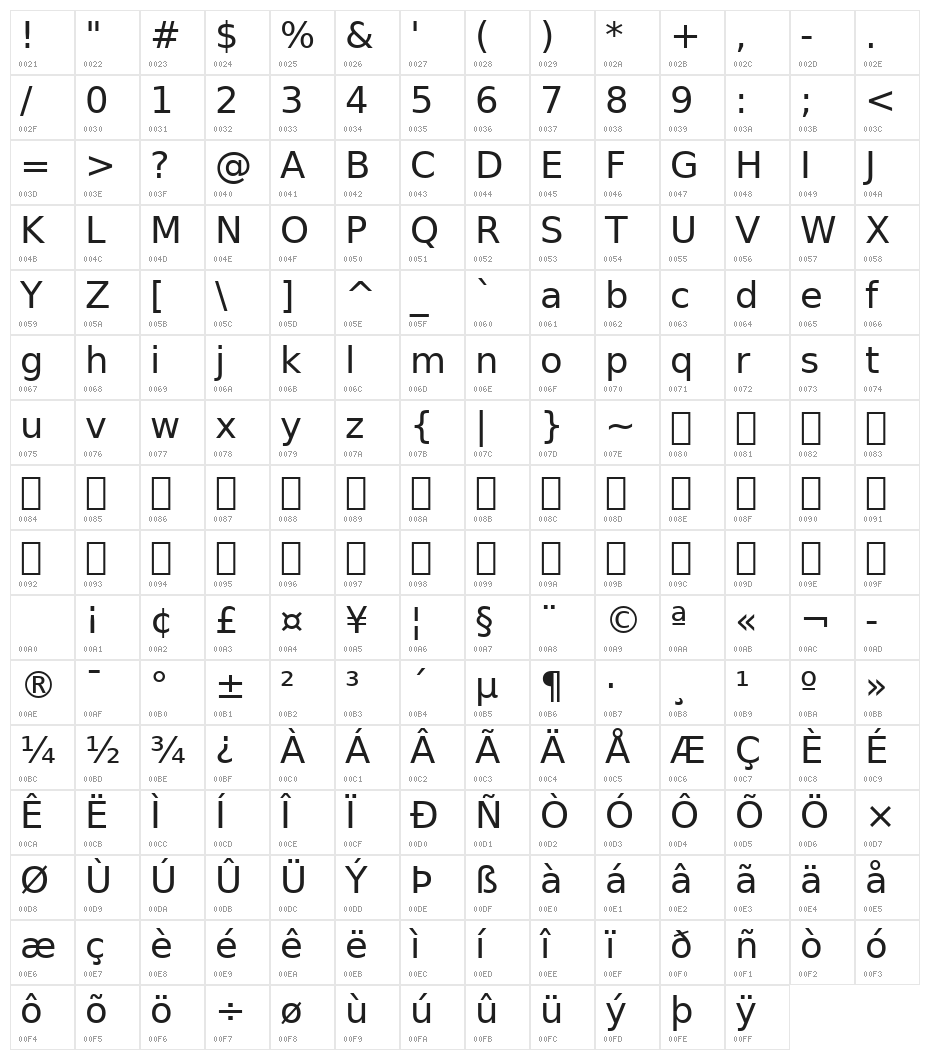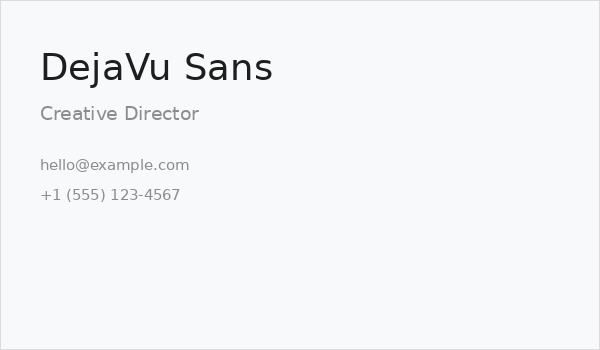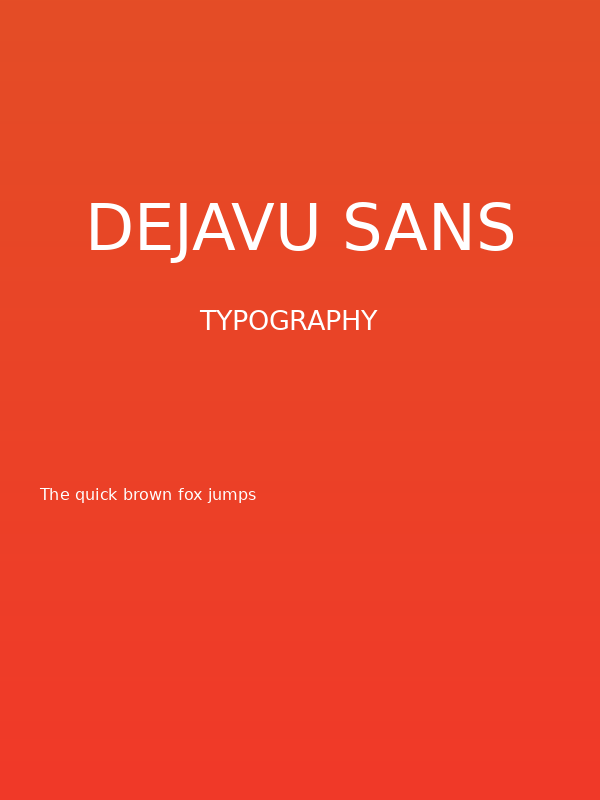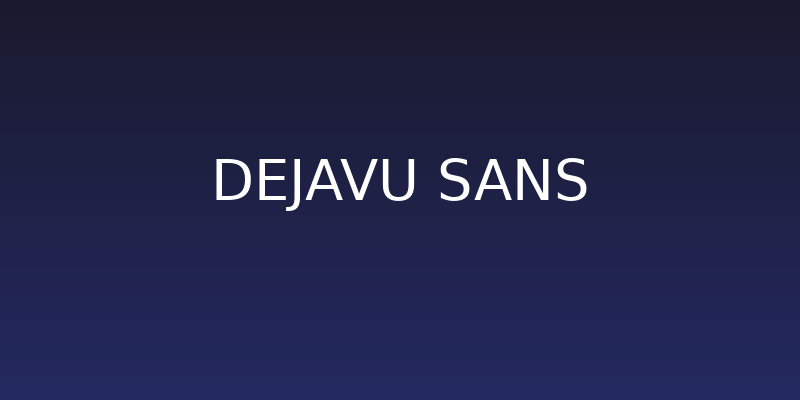
DejaVu Sans Font
DejaVu Sans Description
This font presents a clean and modern sans-serif style, characterized by its simplicity and readability. The characters are well-proportioned with a consistent stroke width, providing a balanced and harmonious appearance. The uppercase and lowercase letters are distinct and clear, making it suitable for a variety of applications. The numerals are straightforward and align well with the overall design, while the special characters maintain the font's clean aesthetic. Its versatility makes it an excellent choice for both digital and print media.
| Proposed Projects | Ideal for web design, user interfaces, corporate branding, and editorial content. |